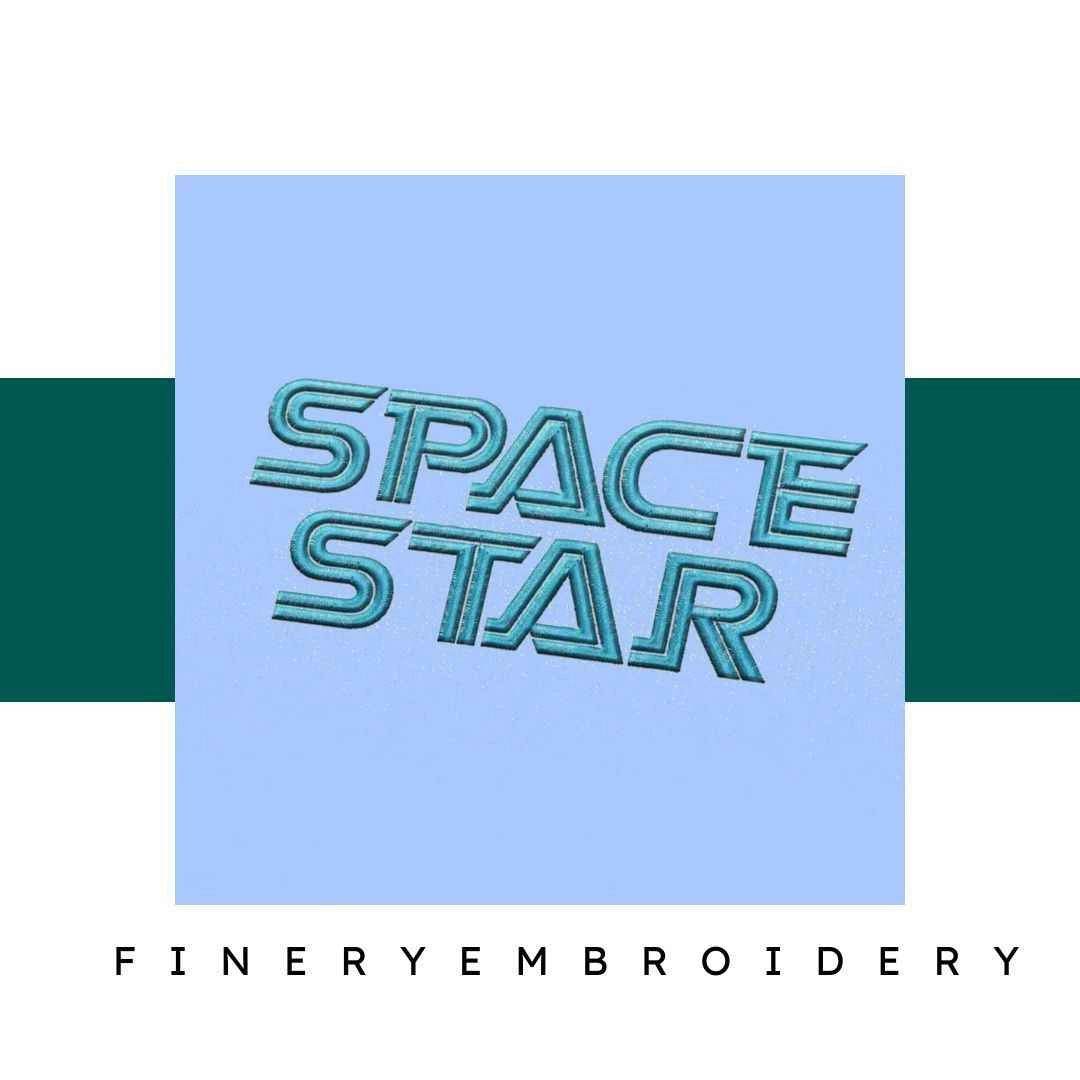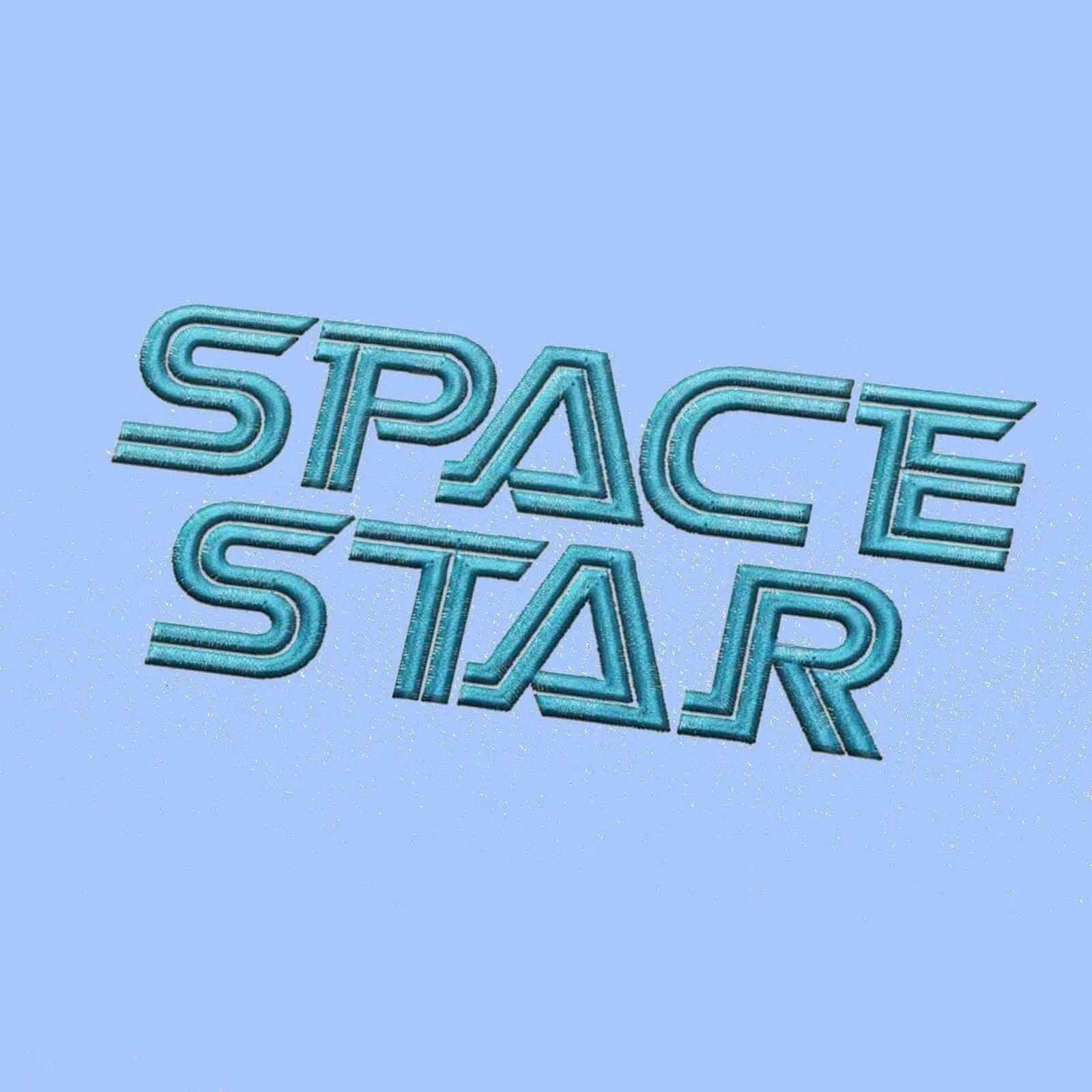
Transform your embroidery projects with the captivating Space Star Embroidery Alphabet Font Set – where elegance meets creativity!
Introducing the Space Star Embroidery Alphabet Font Set, a stunning collection designed to elevate your embroidery creations. With its unique and elegant font style, this set is perfect for adding that sophisticated touch to your personalized gifts, monograms, and decorative accents. Get ready to unleash your creativity and transform ordinary projects into extraordinary masterpieces!
The Space Star Embroidery Alphabet Font Set features an exquisite design that stands out with its refined curves and artistic flair. Each letter is crafted with precision, ensuring that your finished pieces radiate sophistication. Whether you are creating something special for yourself or a loved one, this font set is the ideal choice for adding a personal touch to your embroidery projects.
This versatile font set opens a world of creative possibilities! Imagine embellishing tote bags, home decor, or even custom apparel with the elegant letters of the Space Star set. Ideal for both novice and seasoned embroiderers, you can easily personalize gifts, create stylish monograms, and add decorative accents that express your unique style.